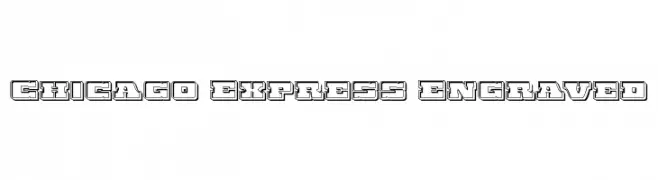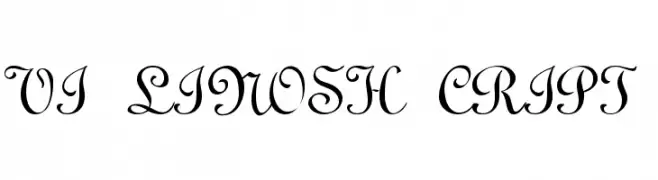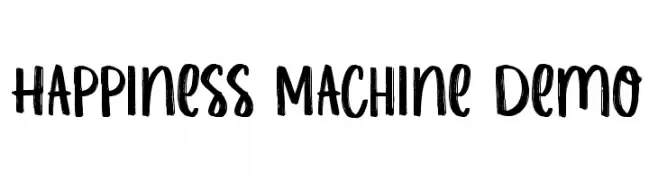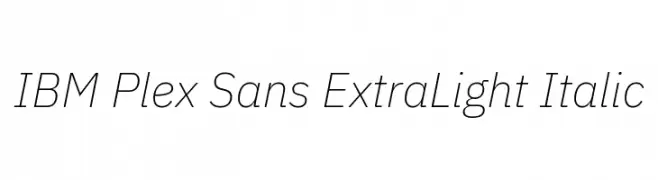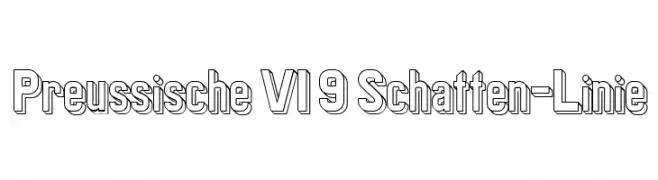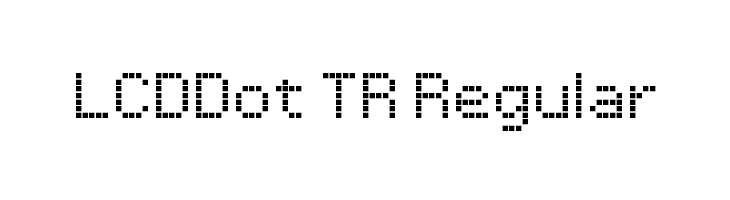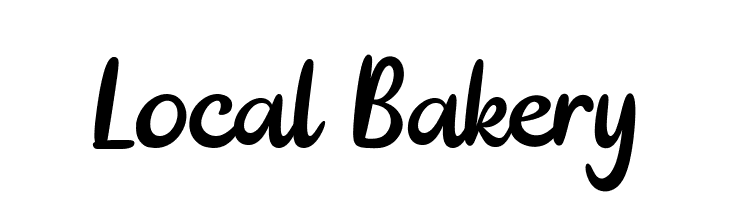
A bold, engraved font with a three-dimensional effect and strong geometric structure.
A playful, casual handwritten font with smooth curves and a whimsical style.
A bold, expressive handwritten font with brush-like strokes.
A sleek, modern, and minimalistic font with a slight slant and thin strokes.
A bold, playful handwritten font with thick strokes and rounded edges.
A bold, outlined font with a shadow effect and geometric shapes.
A playful and elegant handwritten script font with a whimsical flair.